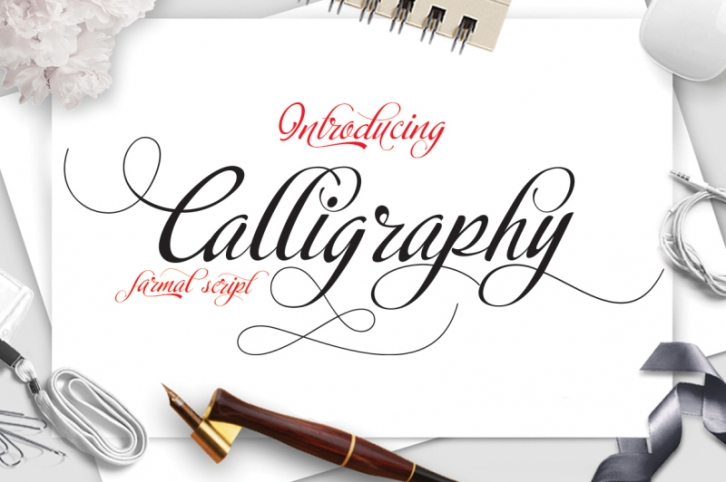
INTRODUCING
Calligraphy script Is a hand calligraphy, smooth, modern and clasik, calligraphy wavy, which was created to meet the needs of your next design project, hopefully you like it.
Calligraphy script, Can used for various purposes. such as the title, signature, logo, correspondence, wedding invitations, letterhead, signage, labels, newsletters, posters, badges, etc.
Calligraphy script features 737 glyphs and has given PUA unicode (specially coded fonts), can be accessed easily with the character map, can be accessed in full by the lovers of letters or artisans to increase career in the design world.
The Features of this fonts is:
• Contextual Alternates
• Standart ligatures
• Stylistic Alternates
• Stylistic Sets and
• swashes
Features Basic Latin A-Z and a-z Numbers Symbols